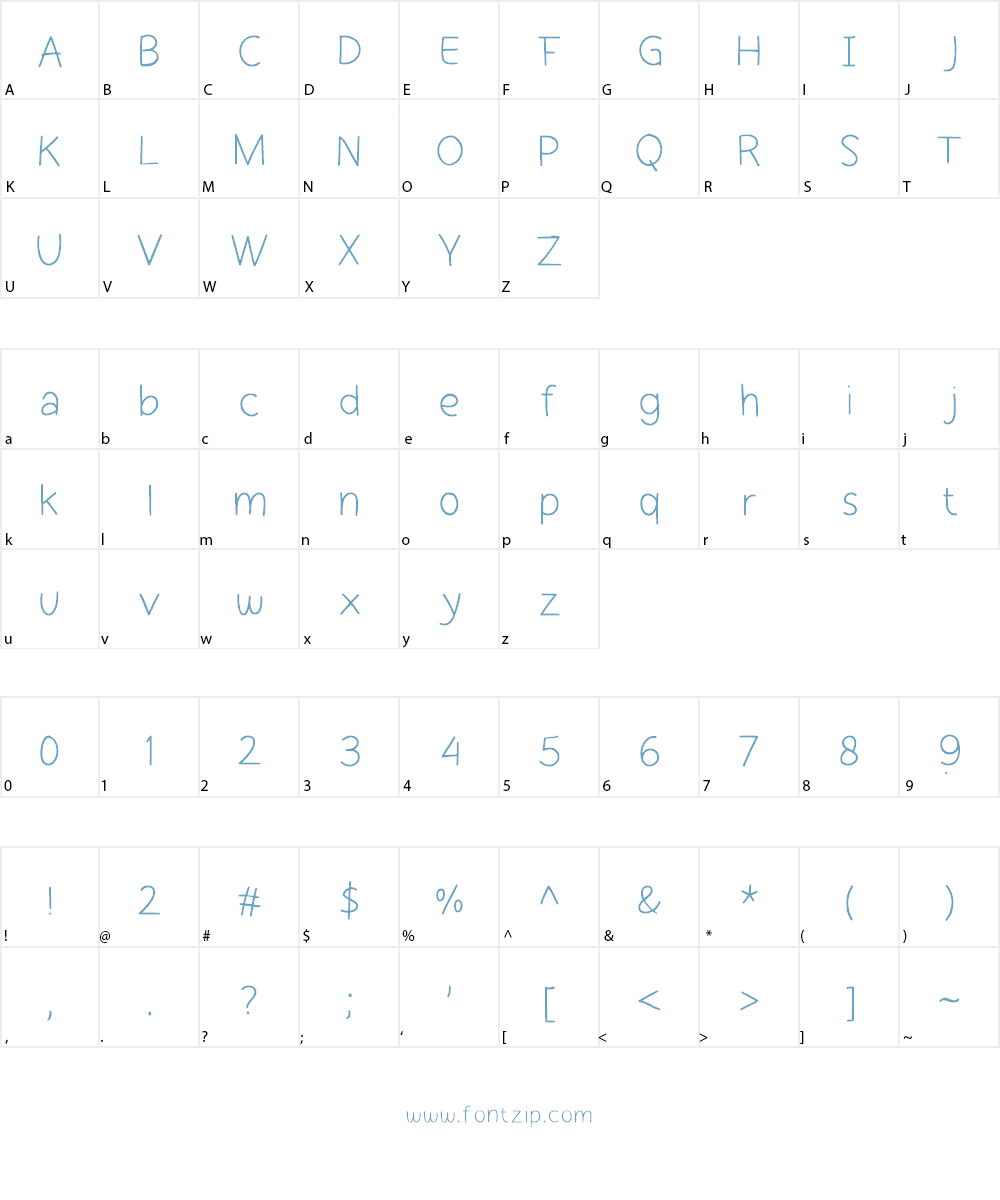
ntroducing cekerayam, a hand drawn font that will make your day more cheerful. This font is perfect for you who find a cute hand drawn font. Enjoy Komiko!